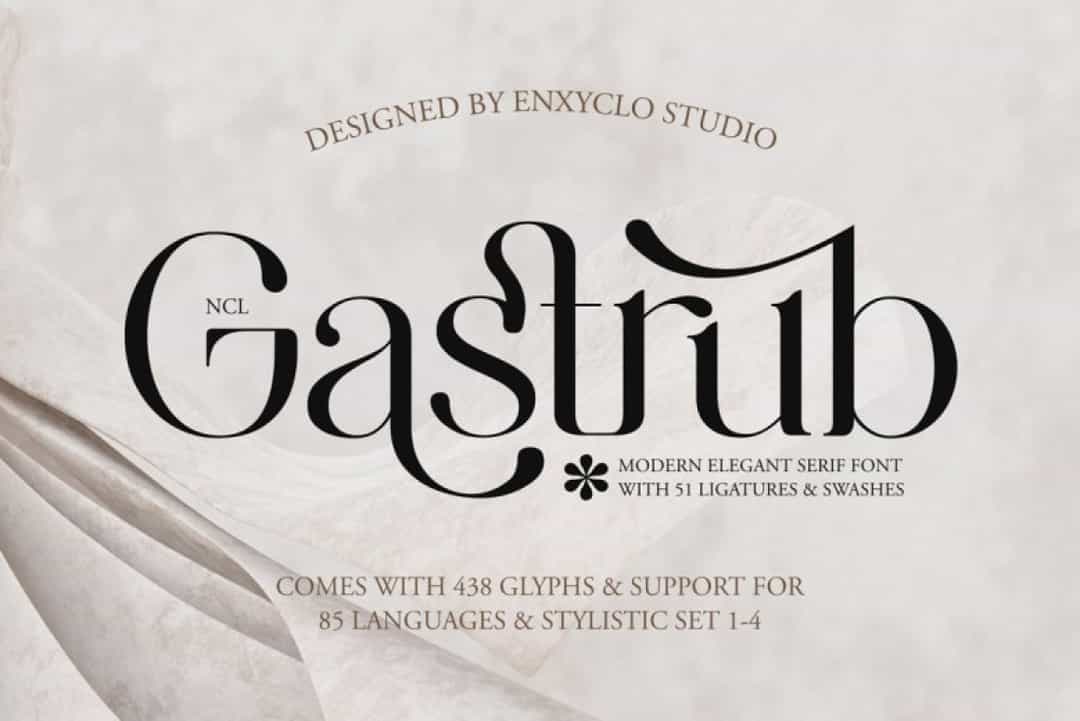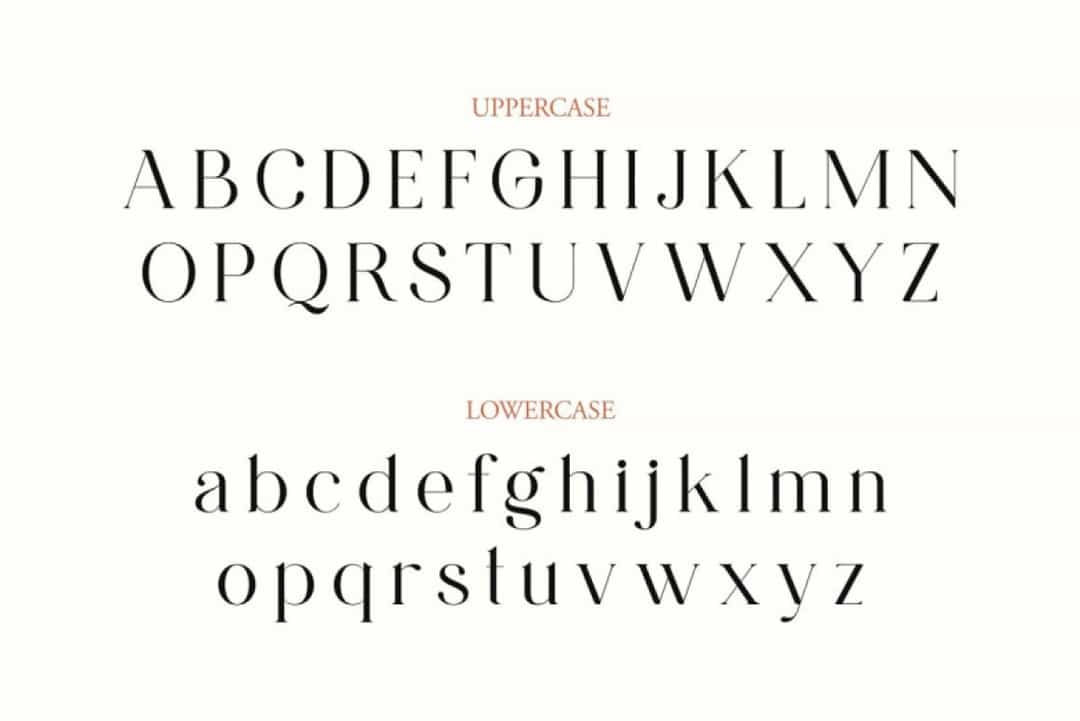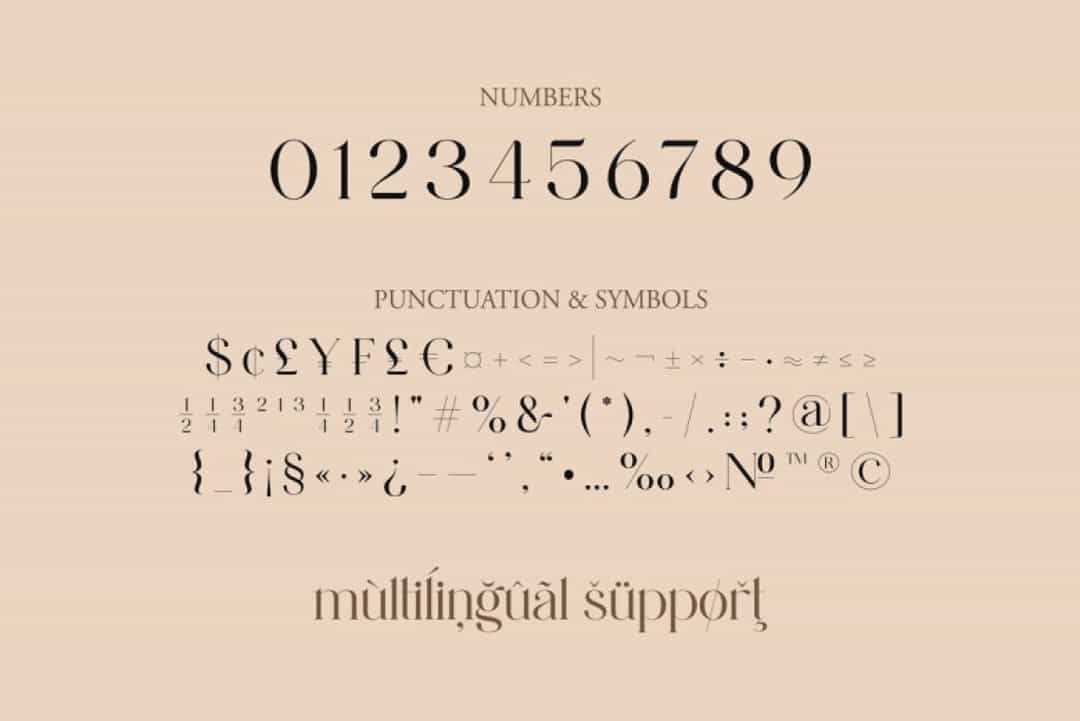
The NCL GASTRUB font is an elegant Swashes and Ligatures serif typeface designed specifically for large point sizes but still retains its beauty when scaled down to smaller points. Expertly crafted to become one of your beloved fonts, this font can elevate all your creative concepts! Though specially intended to be enjoyed as part of its appeal in larger point sizes, its beauty remains intact even at smaller points sizes.